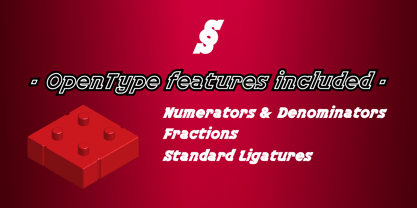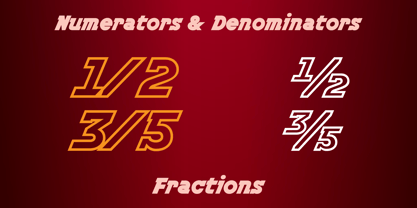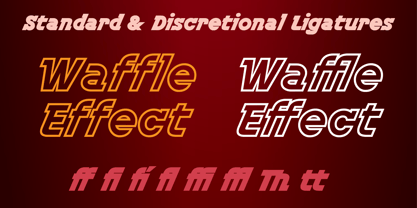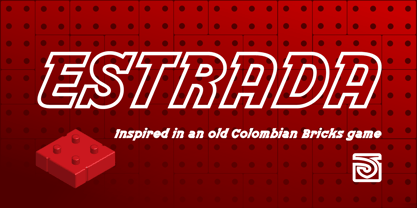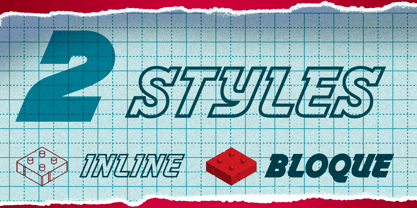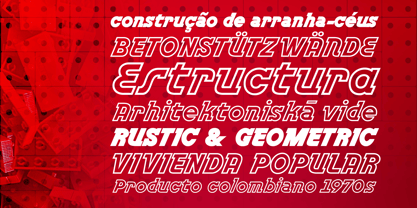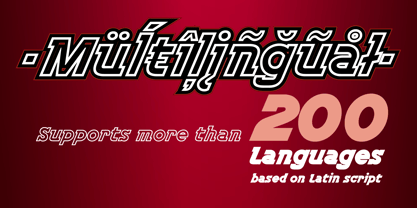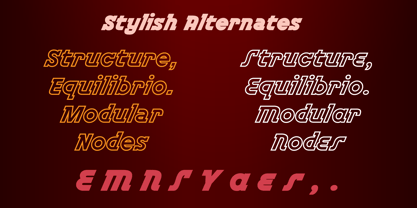
Estrada
by JVB Fonts
Inspired by the bold, playful headlines found on the catalogs and packaging of the iconic *Estra-landia construction toys —a Colombian childhood classic from the 1970s through the late ’80s— Estrada is a display typeface that celebrates the modular, optimistic spirit of a bygone era.
Designed by the team at JVB Fonts, Estrada brings a fresh typographic voice to a nostalgic visual language. Perfect for headlines, posters, editorial design, or branding projects that need strong personality and a touch of retro charm.
The Estrada family includes two complementary styles:
• Estrada Block: bold, solid, and full of presence.
• Estrada Inline: a stylized, hollowed-out version that evokes vintage sci-fi aesthetics and mid-century modern graphics.
Each version has been carefully crafted for high visual impact and smooth readability at large sizes. With geometric construction and clean angles, Estrada echoes the building-block spirit of toys while remaining firmly rooted in contemporary design.
Technical features
• Supports 200+ Latin-based languages.
• Fully equipped OpenType features, including:
• Stylistic alternates
• Contextual ligatures
• Fractions, superscripts and subscripts
• Extended symbols, including a rich set of currency signs.
Perfect for
Editorial headlines, packaging, retro-inspired branding, children’s content, and any creative project that blends boldness, nostalgia, and geometric clarity.
Designers: John Vargas Beltrán
Foundry: JVB Fonts